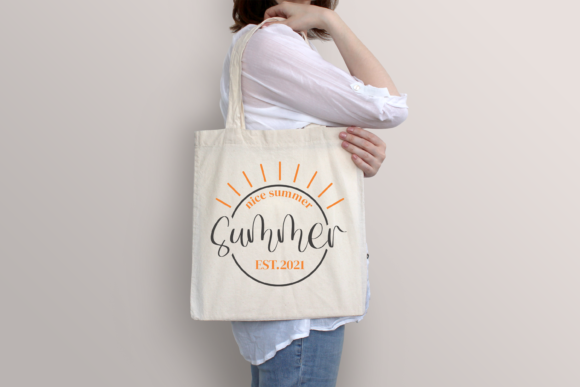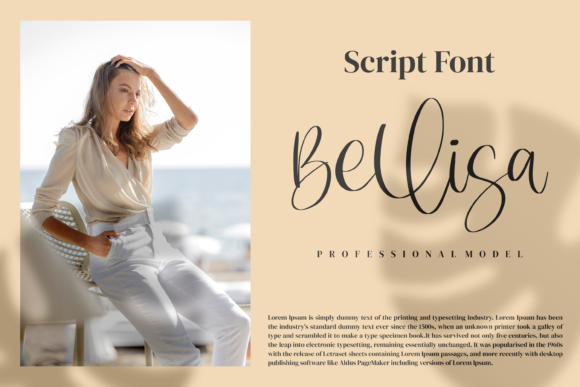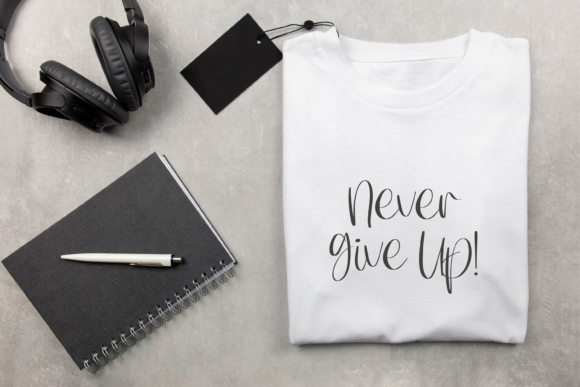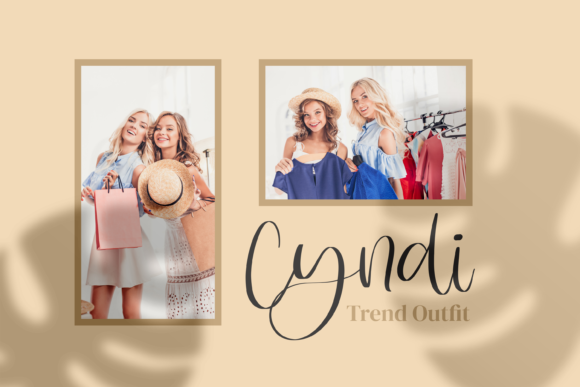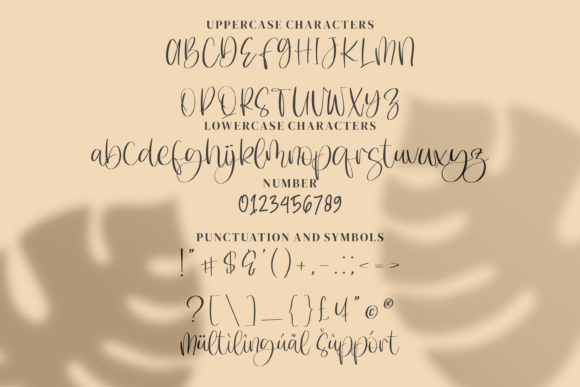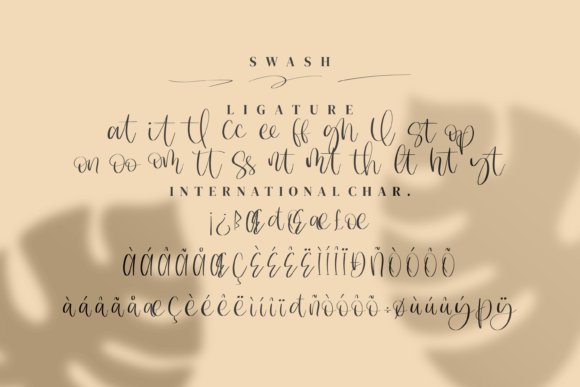
Dharling Font: Elevate Your Designs with Sophistication and Elegance
Are you looking for a font that exudes luxury, refinement, and style? Look no further than Dharling Font, a chic and sophisticated script font that’s perfect for designers and crafters seeking to add a touch of elegance to their projects. With its stylish alternates and ligatures, Dharling is the ideal choice for anyone seeking to create stunning visual content.
What is Dharling Font?
Dharling Font is a beautifully crafted script font that embodies sophistication and refinement. Its elegant strokes and flowing curves make it perfect for a wide range of design applications, from luxury branding and advertising to packaging and digital media. Whether you’re creating a high-end fashion brand or a stylish wedding invitation, Dharling Font is sure to impress.
Key Features of Dharling Font
- Stylish Alternates and Ligatures: Dharling Font comes with a range of stylish alternates and ligatures, allowing you to add a touch of personality to your designs. With its extensive range of swashes and glyphs, you can create unique and eye-catching text that stands out from the crowd.
- PUA Encoded: Dharling Font is PUA (Private Use Area) encoded, making it easy to access all the glyphs and swashes. This means you can easily navigate the font’s extensive character set and select the perfect combination of letters and symbols to enhance your design.
- Elegant and Refined: Dharling Font is designed to exude elegance and sophistication. Its refined strokes and flowing curves make it perfect for creating high-end designs that demand attention.
Why Choose Dharling Font?
With so many fonts available, why choose Dharling Font for your next design project? Here are just a few reasons why Dharling stands out from the crowd:
- Versatility: Dharling Font is incredibly versatile, making it suitable for a wide range of design applications. Whether you’re creating a logo, brochure, or social media graphic, Dharling Font is the perfect choice.
- Unique and Eye-Catching: With its stylish alternates and ligatures, Dharling Font allows you to create unique and eye-catching text that stands out from the crowd. This makes it perfect for designers and crafters seeking to create stunning visual content.
- Easy to Use: Dharling Font is PUA encoded, making it easy to access all the glyphs and swashes. This means you can focus on creating stunning designs rather than getting bogged down in complicated font management.
Design Applications for Dharling Font
Dharling Font is perfect for a wide range of design applications, including:
- Luxury Branding: Create high-end logos, business cards, and letterheads with Dharling Font.
- Wedding and Event Design: Use Dharling Font to create stunning wedding invitations, menus, and programs.
- Packaging Design: Add a touch of elegance to your packaging designs with Dharling Font.
- Digital Media: Use Dharling Font to create eye-catching social media graphics, blog posts, and website headers.
In conclusion, Dharling Font is a chic, refined script font that’s perfect for designers and crafters seeking to add a touch of sophistication and elegance to their projects. With its stylish alternates and ligatures, PUA encoding, and elegant strokes, Dharling Font is the ideal choice for anyone seeking to create stunning visual content. Whether you’re creating a luxury brand, wedding invitation, or packaging design, Dharling Font is sure to impress.